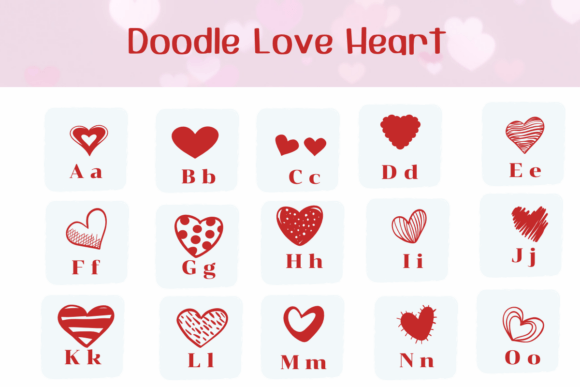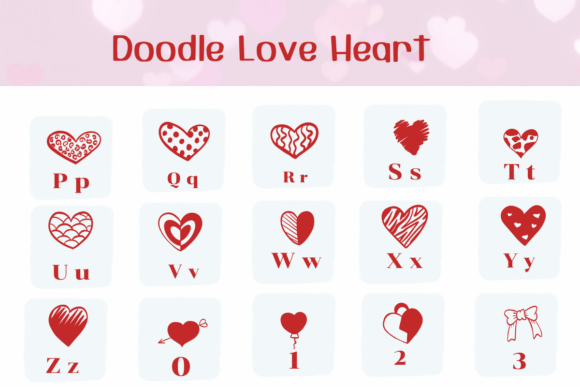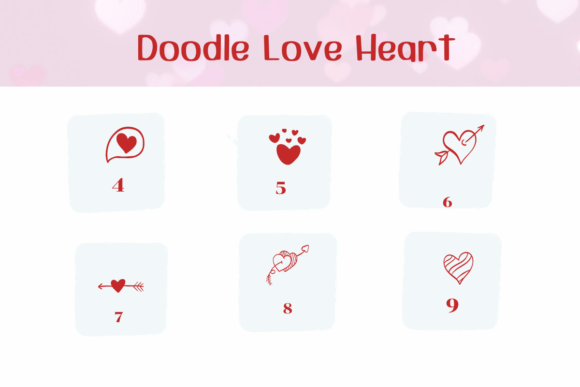
Introduction to Doodle Love Heart Font
As a designer, there’s nothing quite like the thrill of bringing a creative idea to life. You’re brainstorming, sketching, and experimenting until the perfect design emerges. But what if you could take your projects to the next level with a unique and playful touch? That’s where the Doodle Love Heart Font comes in – a charming dingbats font with a sketched style that’s sure to capture hearts.
This delightful font is more than just a design resource – it’s a high-quality tool that can elevate your creative projects, from wedding invitations and DIY crafts to decorations and logos. With its transparent background and free download option, you can easily incorporate it into your next project and make it truly special.
Whether you’re a seasoned designer or just starting out, the Doodle Love Heart Font is a valuable addition to your toolkit. Its whimsical charm and versatility make it perfect for a wide range of creative endeavors, and its high-quality design ensures that it will always look professional and polished.
Key Features of Doodle Love Heart Font
- Unique, hand-drawn design for a creative project or romantic theme
- Features a transparent background, allowing for easy customization and layering
- High-resolution design, suitable for print and digital use at 300 DPI or higher
- Perfect for Valentine’s Day, weddings, or any other occasion that requires a touch of love and romance
- Can be used in a variety of design projects, from social media graphics to greeting cards and posters
Honest Review: Doodle Love Heart Font
I recently stumbled upon the Doodle Love Heart Font, and I’m excited to share my thoughts on this design resource. The font is available for free download, which is a huge plus for designers on a budget. Upon closer inspection, I noticed that the font has a transparent background, making it easy to customize and integrate into various creative projects.
What works well with the Doodle Love Heart Font is its high-quality design. The doodle-style love hearts are adorable and would be perfect for adding a touch of whimsy to your designs. The font is also highly customizable, allowing you to adjust the size, color, and spacing to suit your creative project’s needs.
- ✨ Cute and playful design perfect for Valentine’s Day or love-themed projects
- ✨ Highly customizable with transparent background for easy integration
One potential limitation of the Doodle Love Heart Font is its limited use cases. While it’s perfect for love-themed projects, it may not be as versatile as other fonts for more general design projects.
Overall, I’m impressed with the Doodle Love Heart Font’s design quality and customization options. It’s a great addition to any designer’s toolkit, especially for creative projects that require a touch of whimsy and romance.
Tips for Getting the Most Out of Doodle Love Heart Font
Use the Doodle Love Heart Font in combination with other design elements, such as illustrations or graphics, to create a unique and eye-catching design. Experiment with different font sizes, styles, and colors to achieve the desired effect. Also, make sure to check the font’s compatibility with your design software.
The Doodle Love Heart Font is perfect for Valentine’s Day-themed designs, wedding invitations, and romantic social media posts. You can also use it for birthday cards, anniversary celebrations, or any other occasion that requires a touch of love and romance.